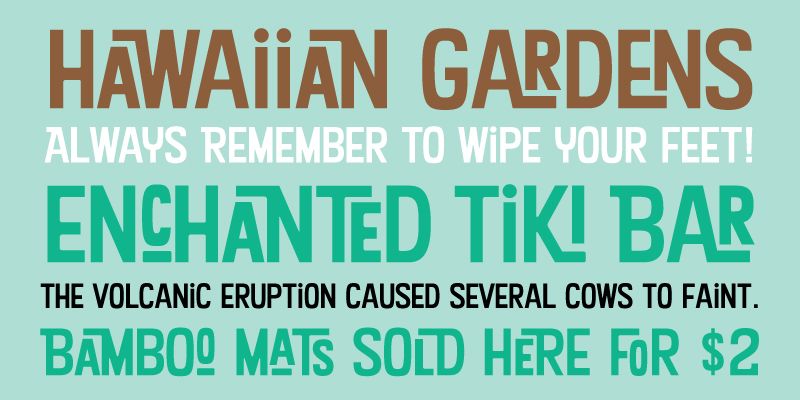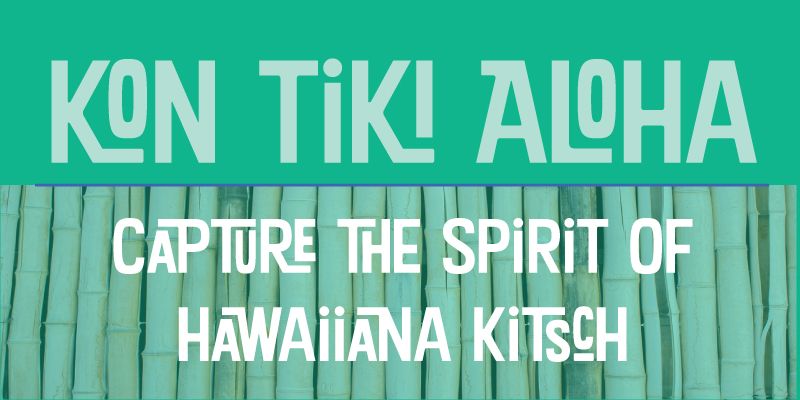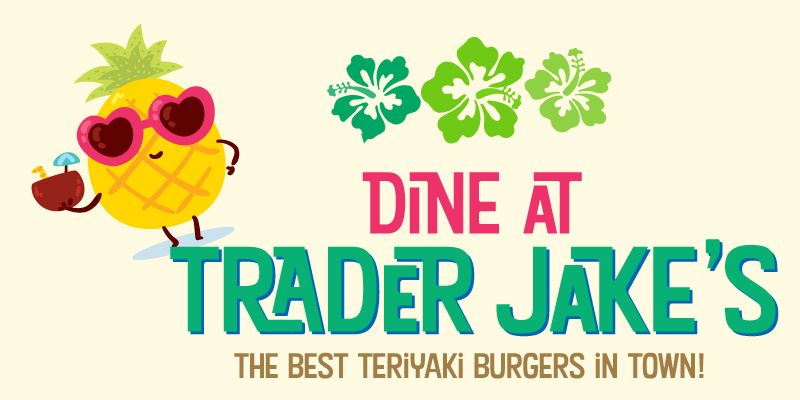
Kon Tiki Aloha celebrates the design style of mid 20th Century Tiki kitsch. This font contains 120 alternate interlocking ligatures which can be found under the Discretionary Ligatures OT feature.